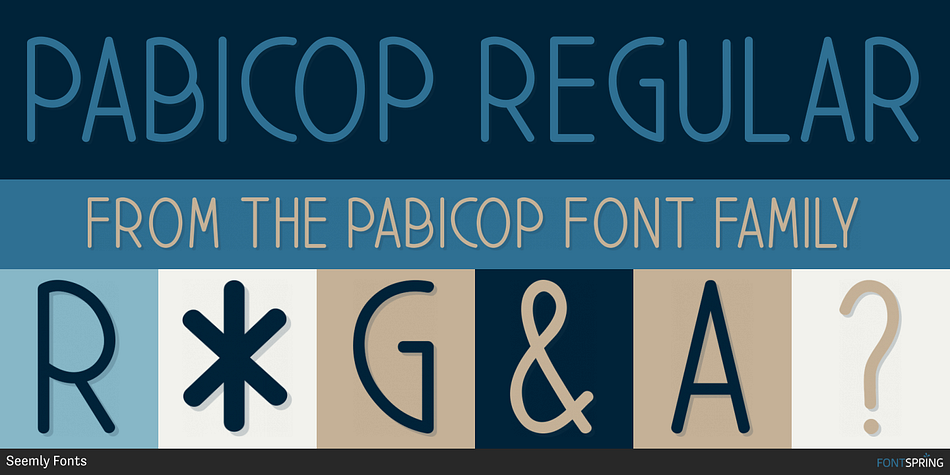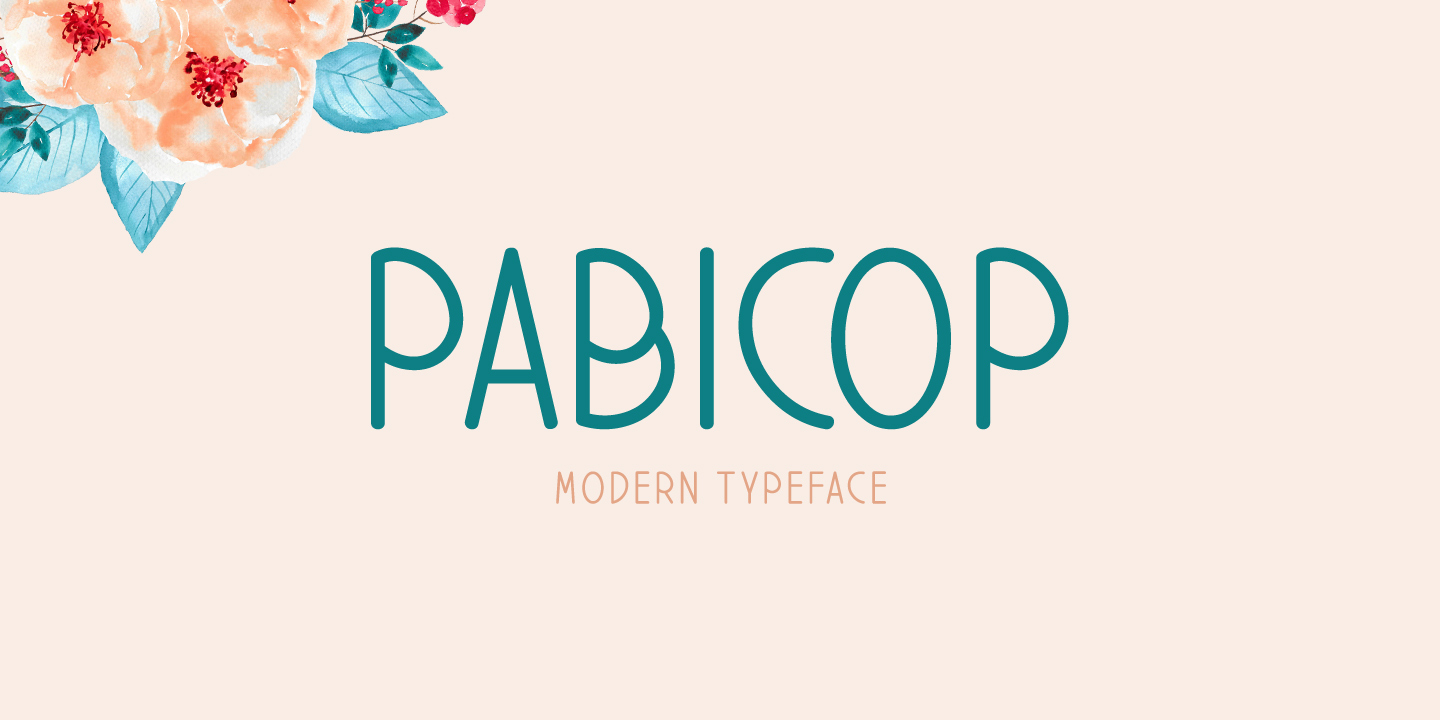
Designed by Md. Shohail Bhuiyan, Pabicop is a display sans and hand display font published by Seemly Fonts.
PABICOP REGULAR
Introducing Pabicop!
Pabicop is a brand new font. Pabicop is perfectly suited to stationery, logos, t-shirt, paper, print design, website header, photo frame, flyer, music cover, poster, image slider and much more.